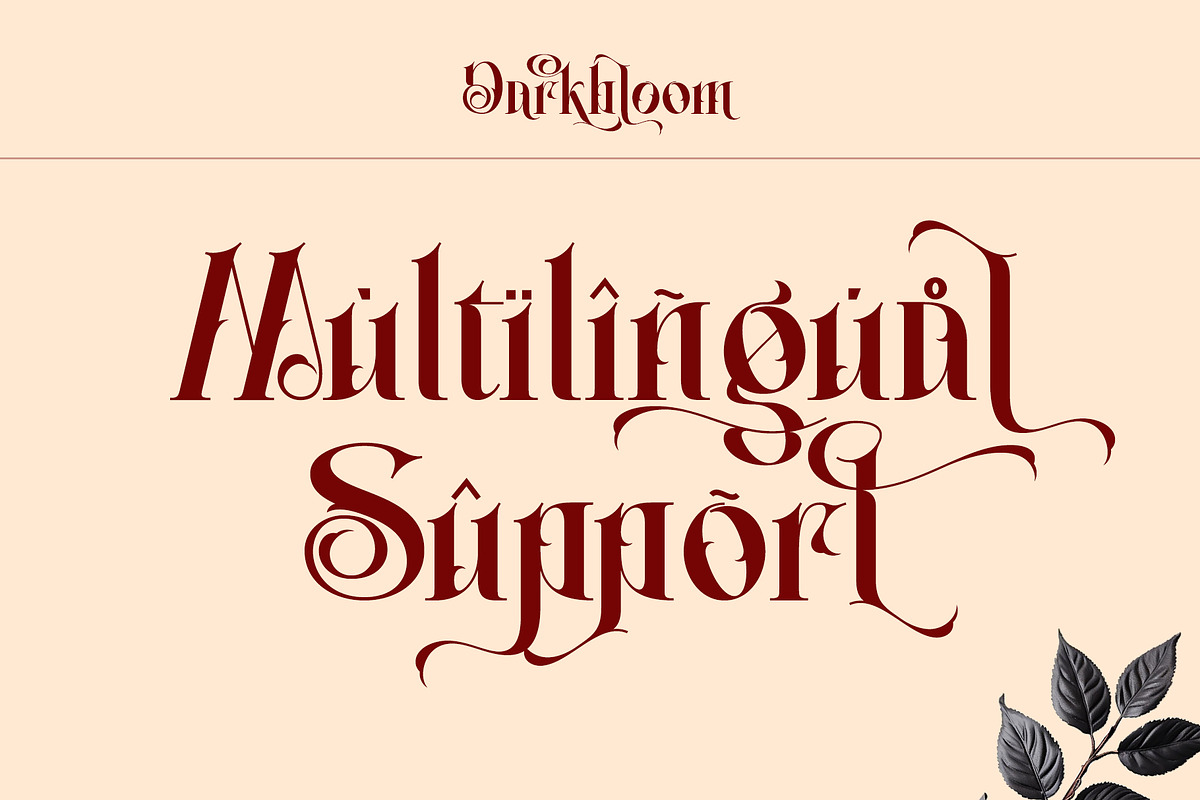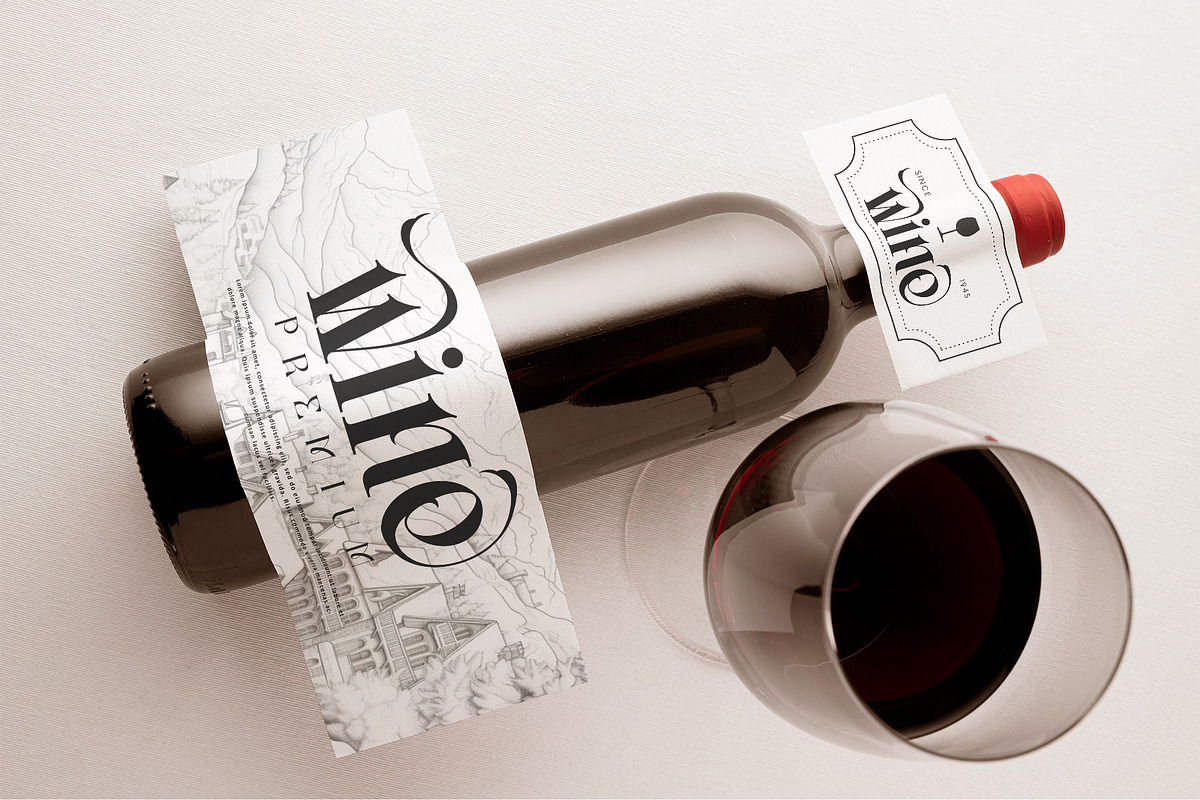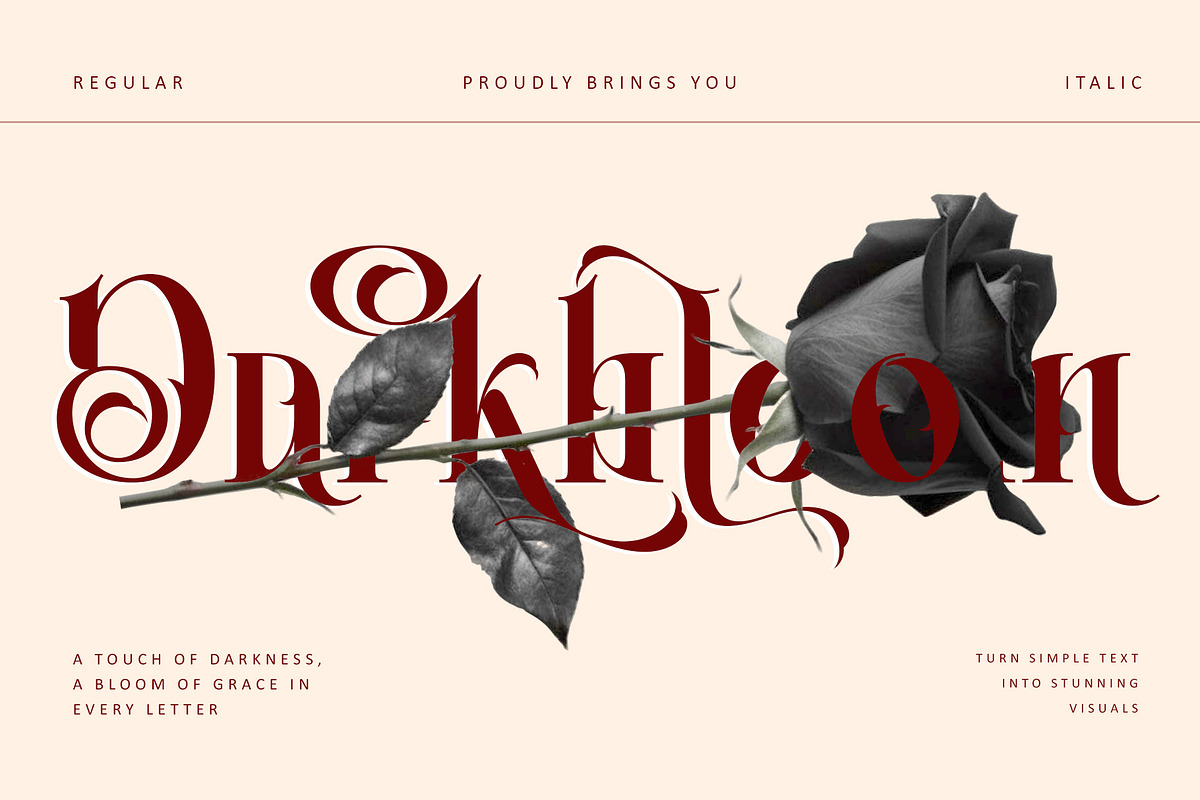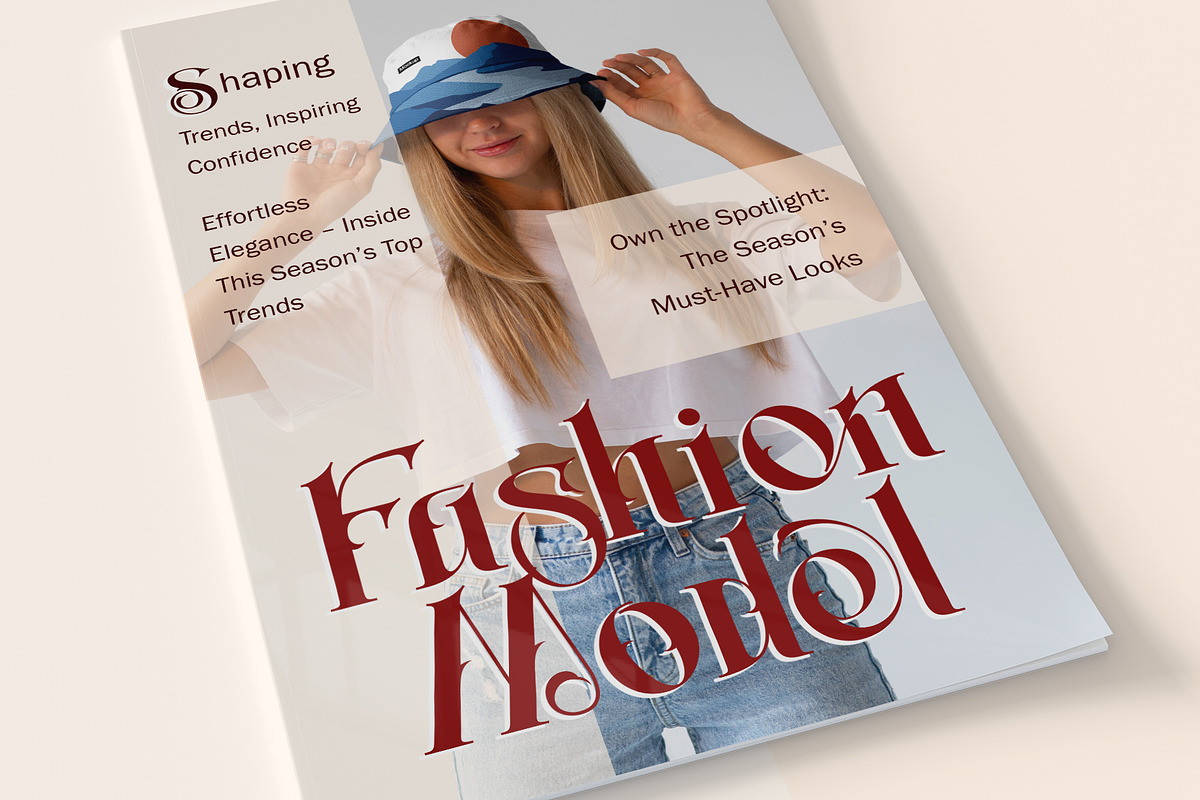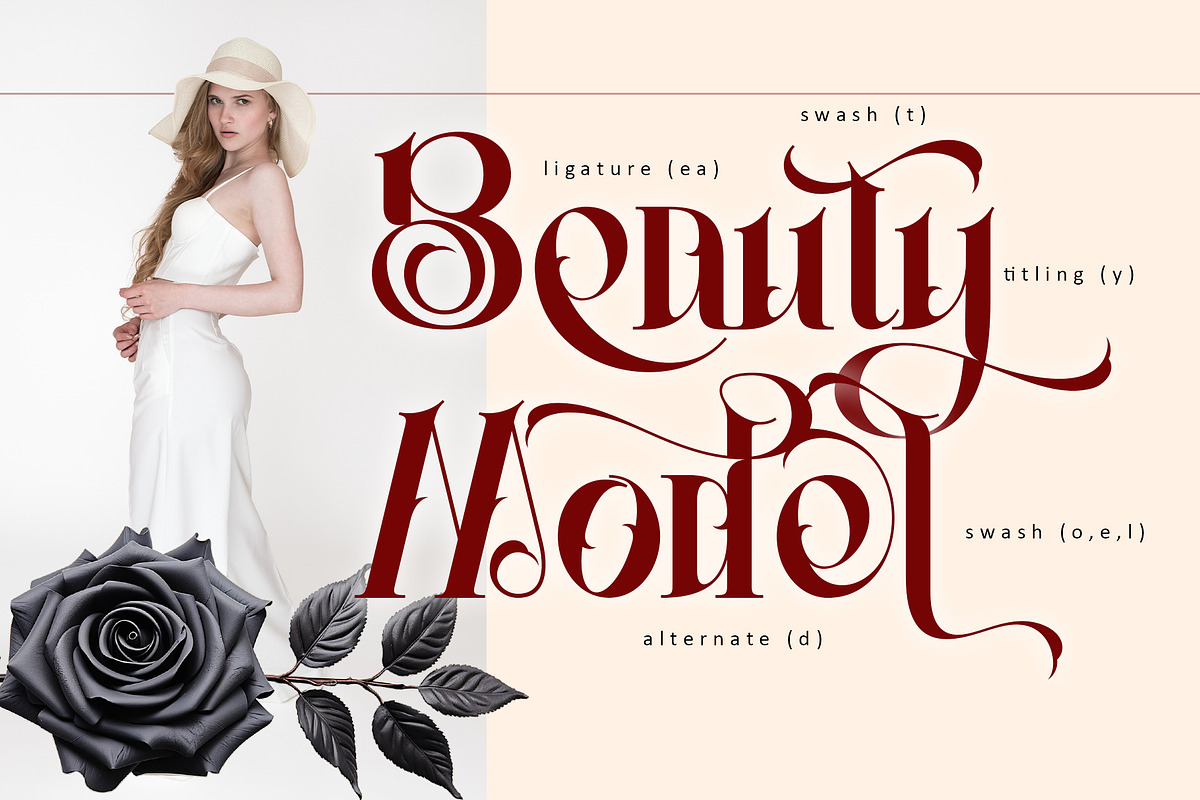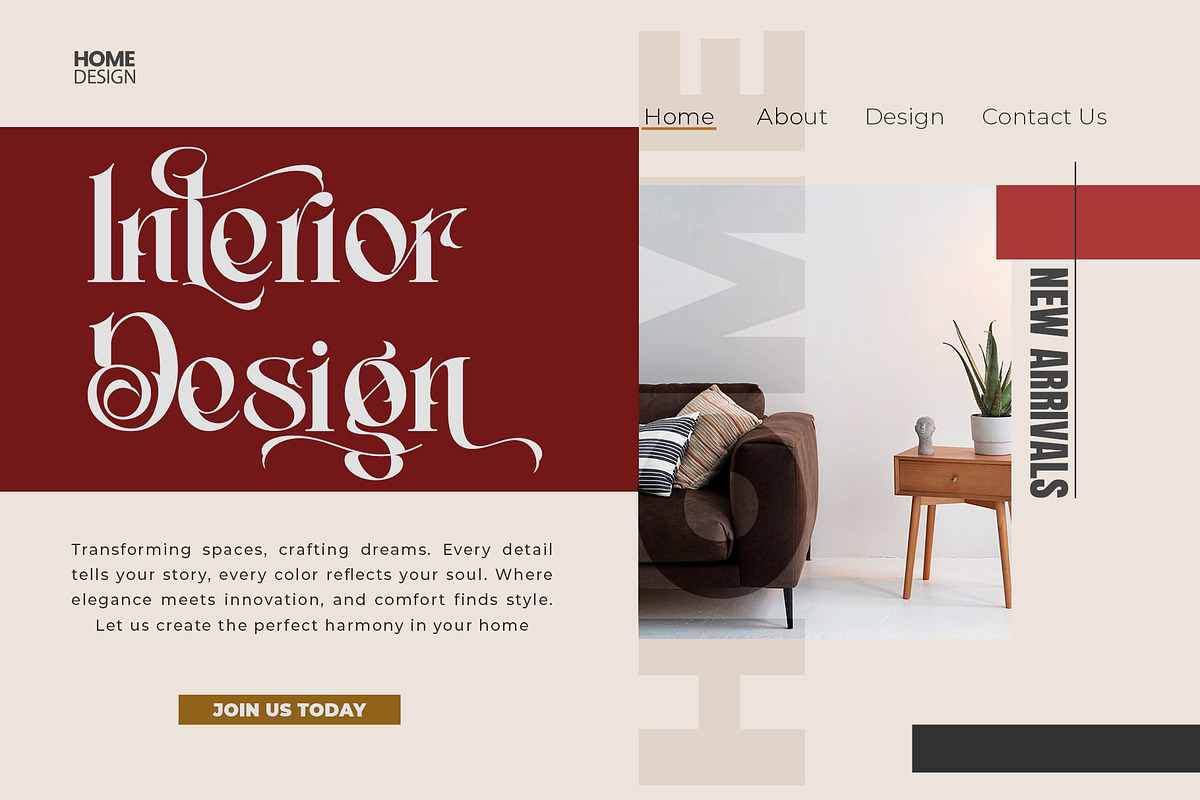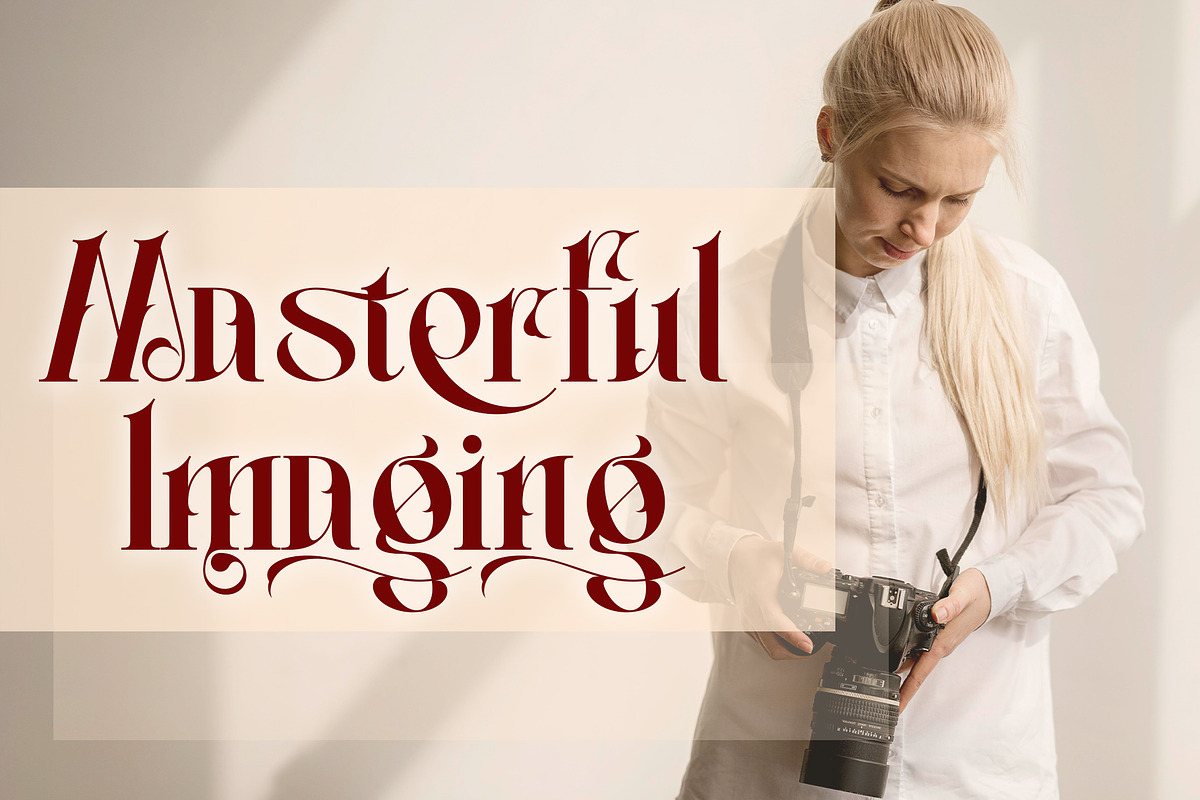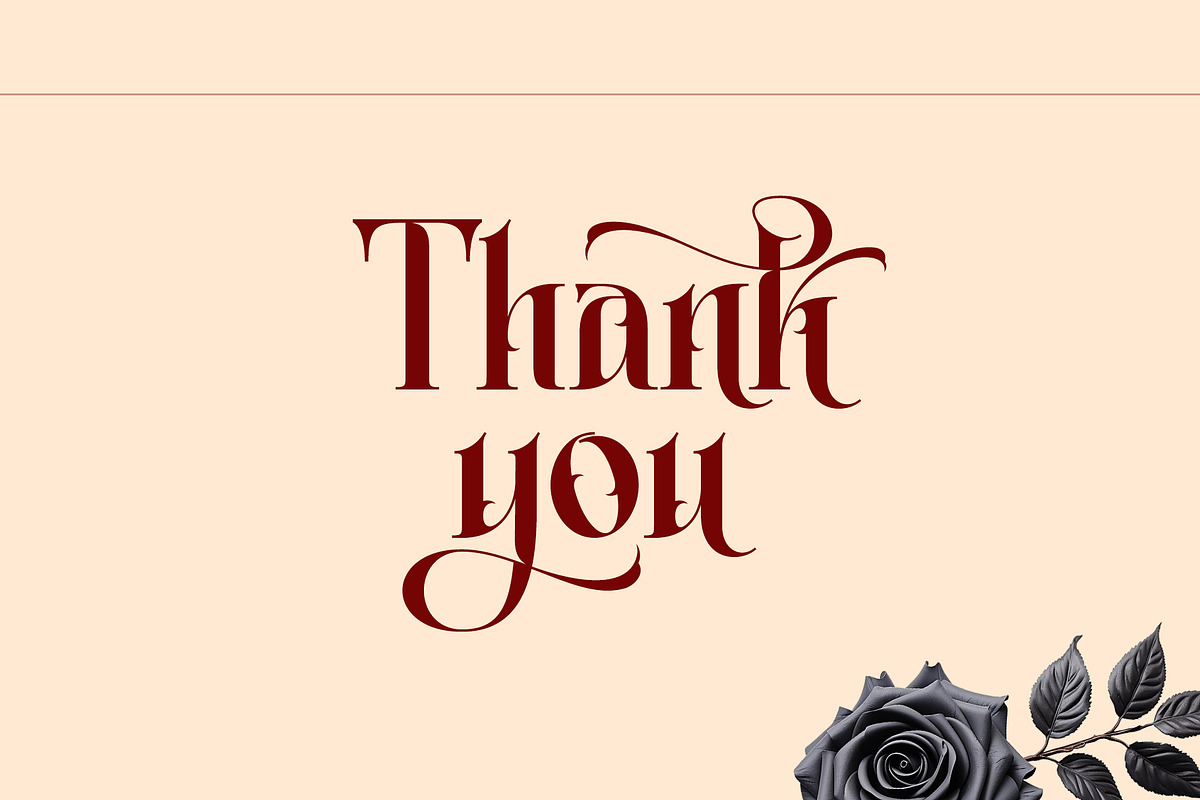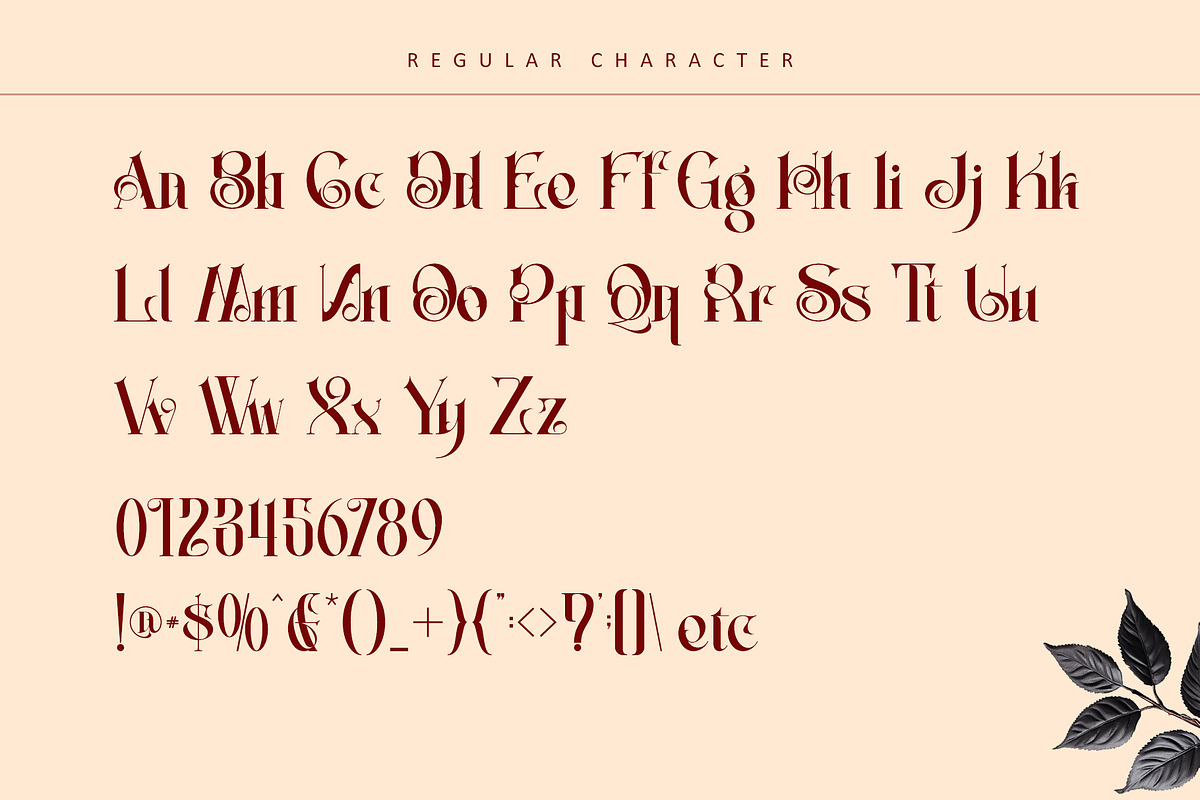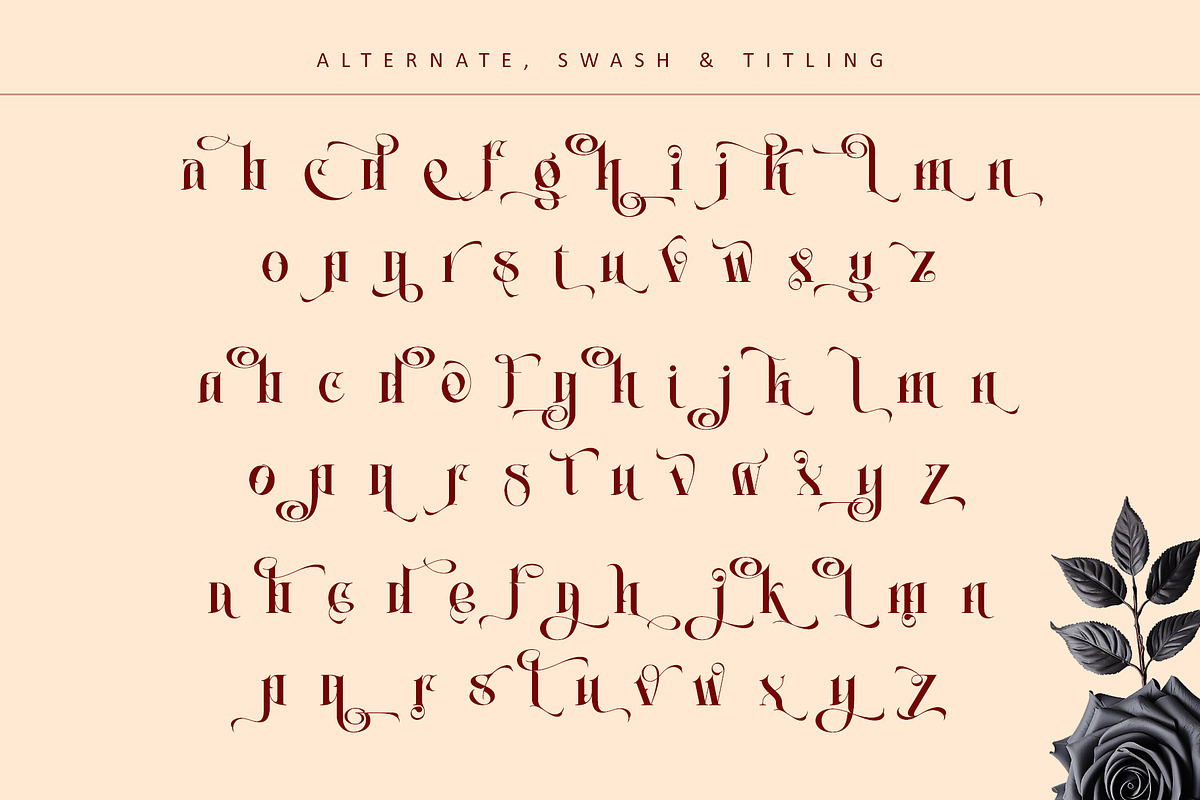
Darkbloom
Unveil the beauty of Darkbloom, a refined serif font that combines delicate sophistication with an enchanting edge. Perfect for elevating everything from luxurious packaging to high-end branding, Darkbloom’s distinctive letterforms and intricate details add a timeless allure to any project. With PUA encoding, effortlessly access a wide variety of unique glyphs and swashes, ensuring your creations capture attention with unparalleled elegance and charm. Let Darkbloom be the touch of elegance that brings your designs to life.
Many Features:
- Support multilingual; ä ö ü Ä Ö Ü ß ¿ ¡
- lowercase and uppercase letters
- Alternate, swash, titling & ligature